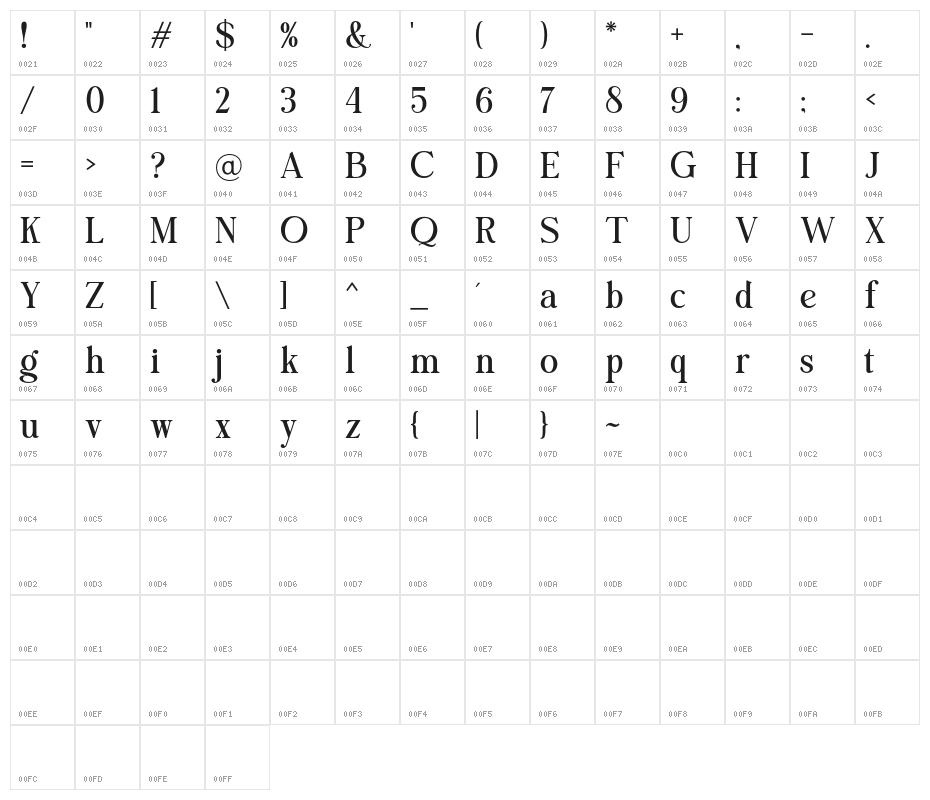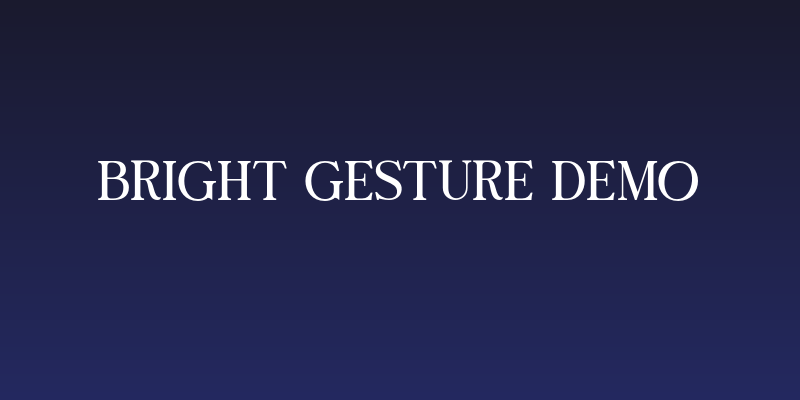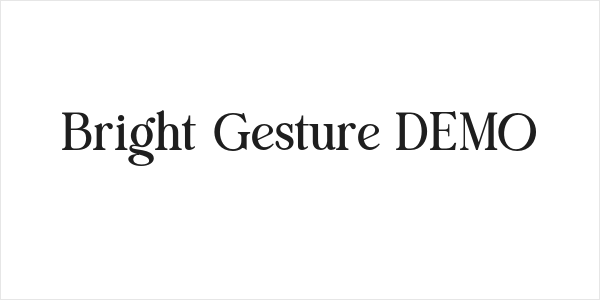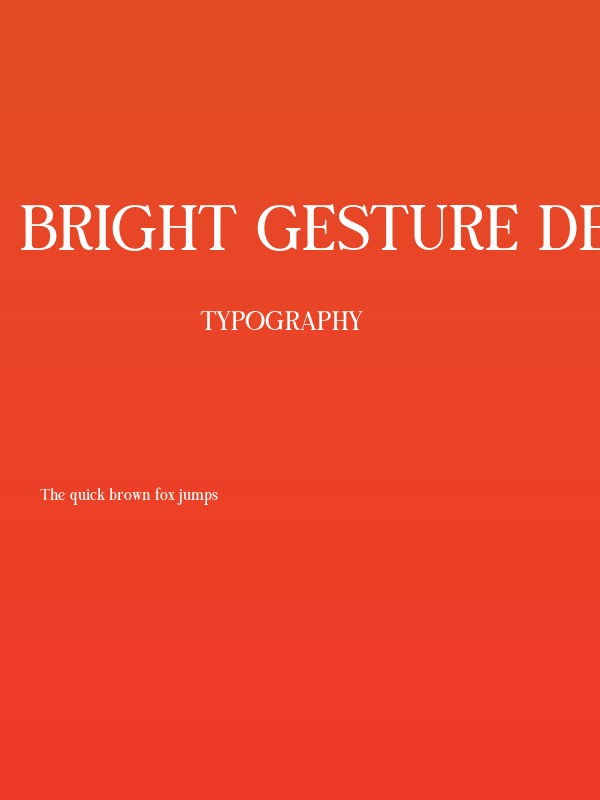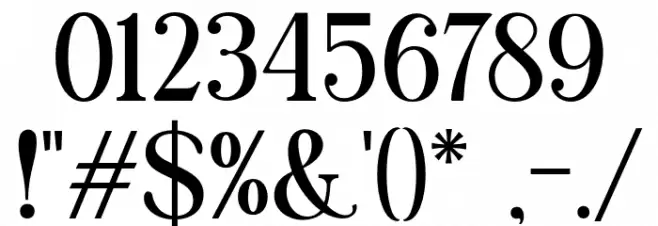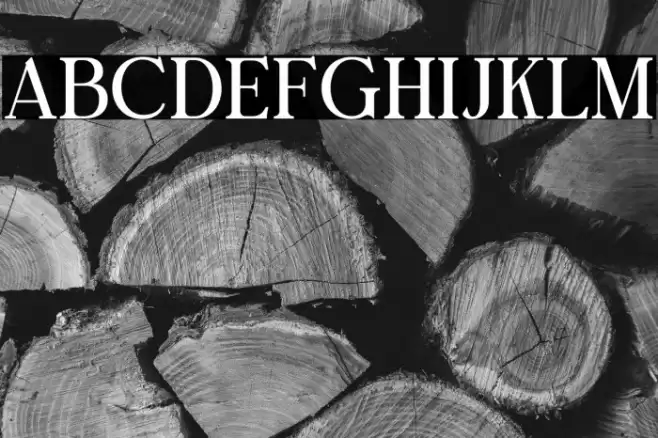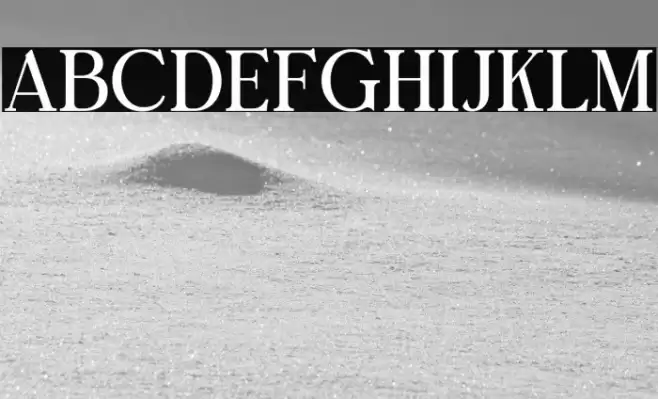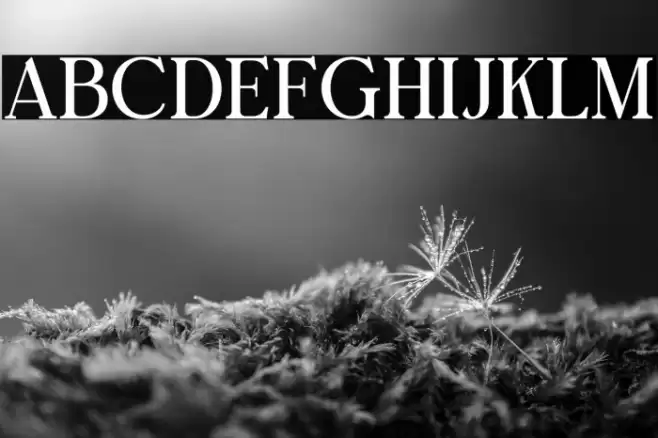
Bright Gesture DEMO Font
Bright Gesture DEMO Description
This font exhibits a classic serif style with elegant and refined strokes. The uppercase letters are bold and commanding, while the lowercase letters maintain a consistent and harmonious flow. The numerals are clear and distinct, making them easily readable. Special characters are well-integrated, adding versatility to the font's application. The overall design is balanced, with moderate contrast between thick and thin strokes, giving it a timeless and sophisticated appearance.
| Proposed Projects | Ideal for editorial design, book covers, formal invitations, and branding projects that require a touch of elegance and tradition. |